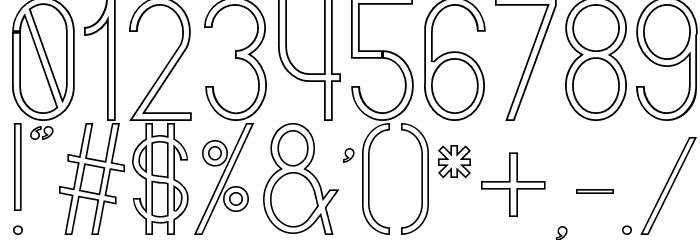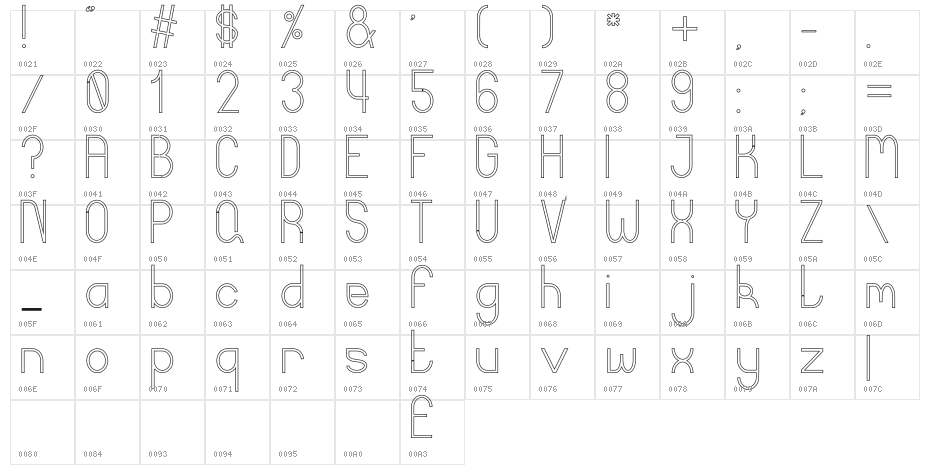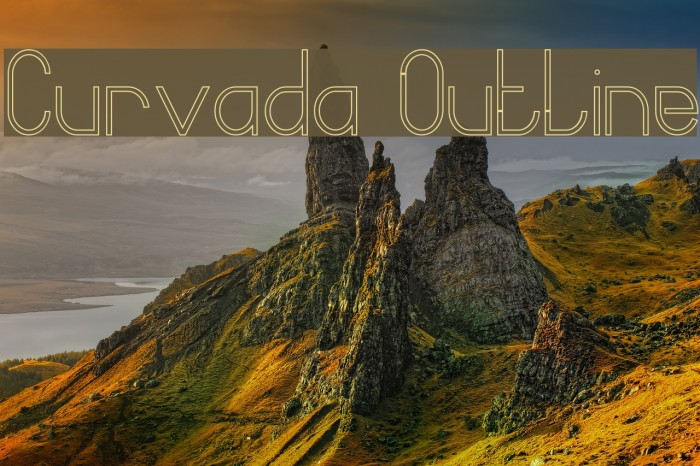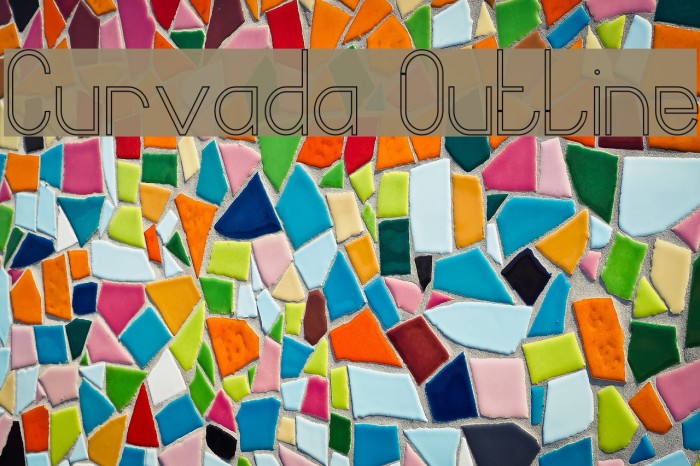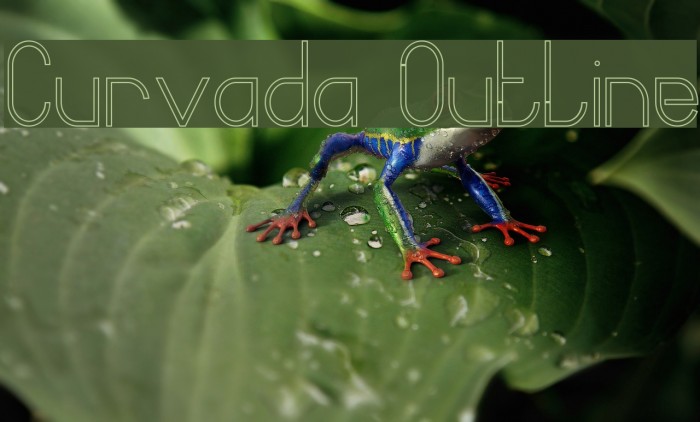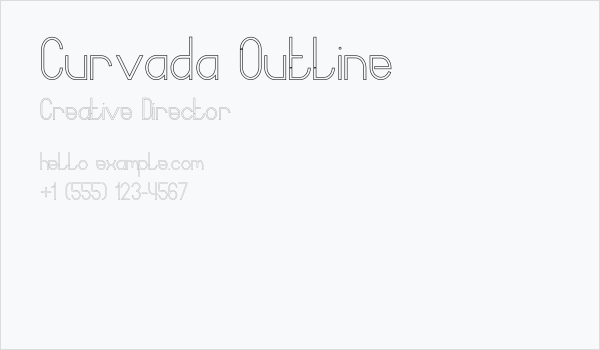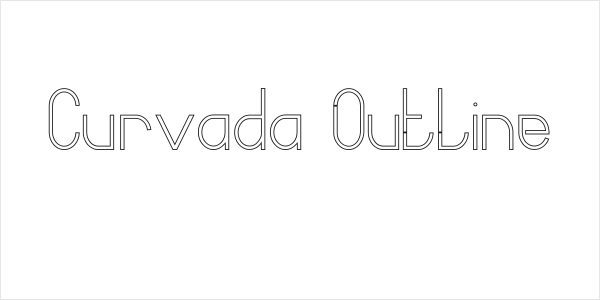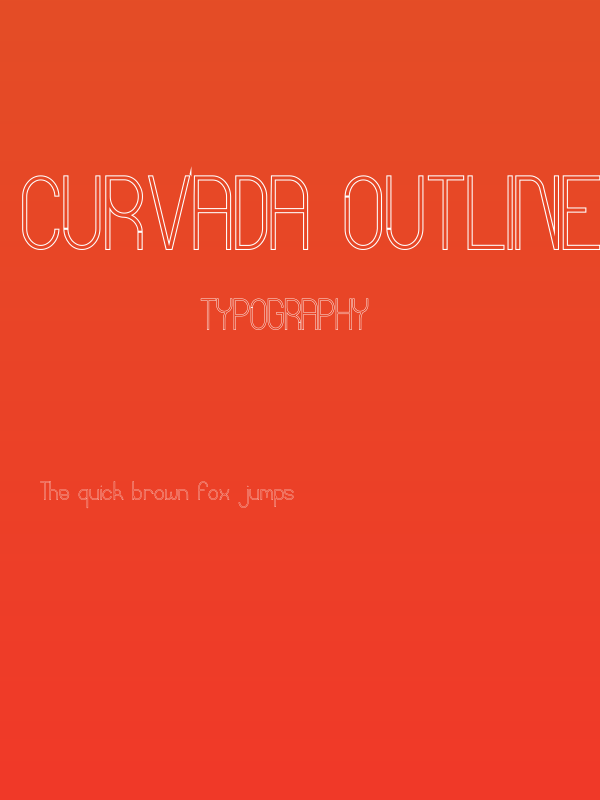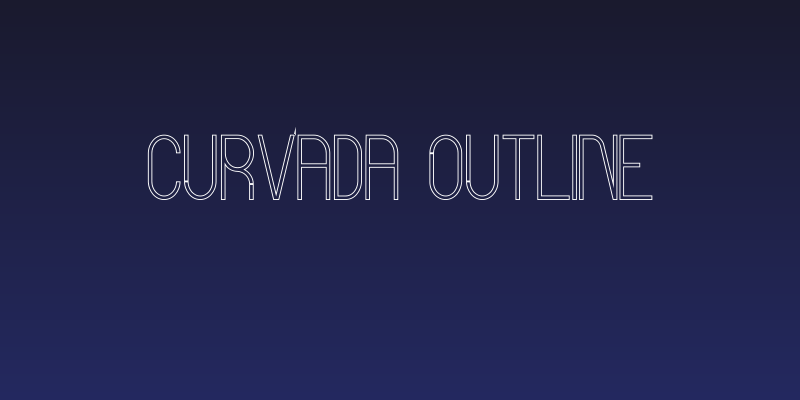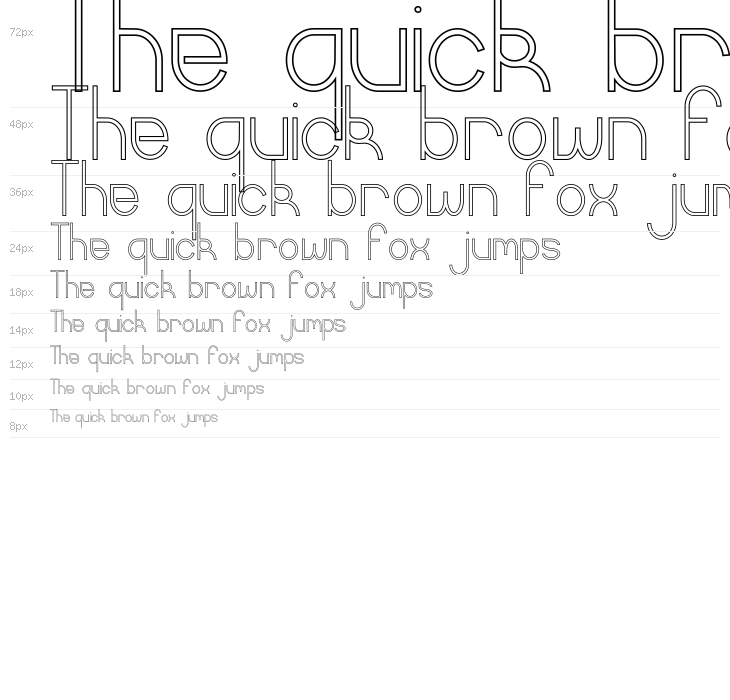
Curvada Outline Font
Curvada Outline Description
This font features a unique outline style with a modern and geometric aesthetic. The characters are formed with clean, continuous lines that create a hollow effect, giving it a distinct and airy appearance. The uppercase and lowercase letters maintain a consistent height, contributing to a uniform look. The numerals and special characters follow the same design principles, ensuring cohesion across all elements. Its minimalist design makes it versatile for various creative applications, while the outline nature adds a touch of elegance and sophistication.
Use CaseLogos, Posters, Digital media
Proposed ProjectsIdeal for branding, logos, posters, and digital media where a modern and stylish look is desired.